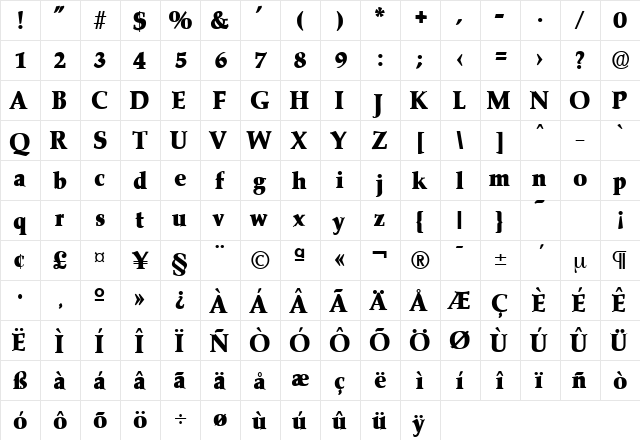
Marathon-Serial-Heavy Regular
Design Context for Marathon-Serial-Heavy Typeface
Marathon-Serial-Heavy offers clean, dependable letterforms without strong stylistic allegiance, making it a practical choice for designers who need flexibility.
Pro Tip: Use Marathon-Serial-Heavy in both headline and body roles to test its range before committing to a single application.